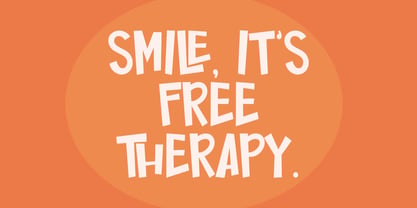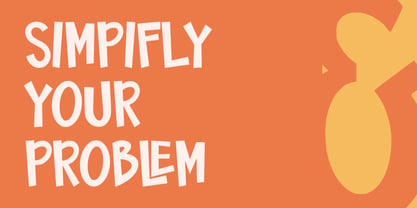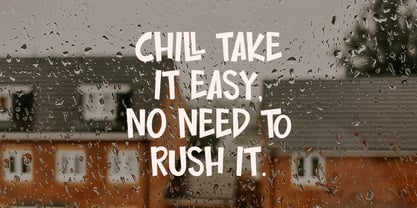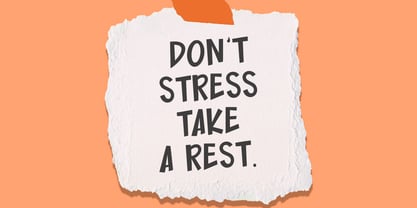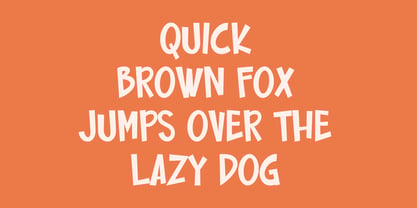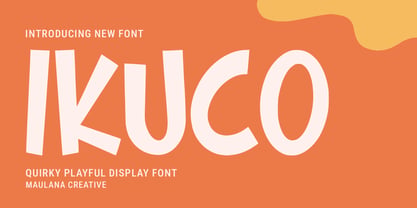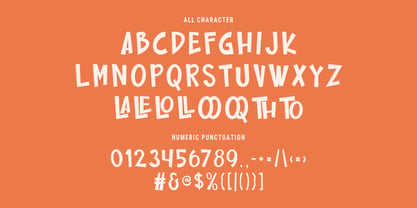
MC Ikuco
by Maulana Creative
The MC Ikuco Font Family was designed by Gilang Maulana and published by Maulana Creative. MC Ikuco contains 1 styles. More about this family
Ikuco is a quirky playful style display font. Fun character with a bit of ligatures. To give you an extra creative work. Ikuco font support multilingual more than 100+ language. This font is good for logo design, Social media, Movie Titles, Books Titles, a short text even a long text letter and good for your secondary text font with sans or serif. Make a stunning work with Ikuco font.
Designers: Gilang Maulana
Foundry: Maulana Creative